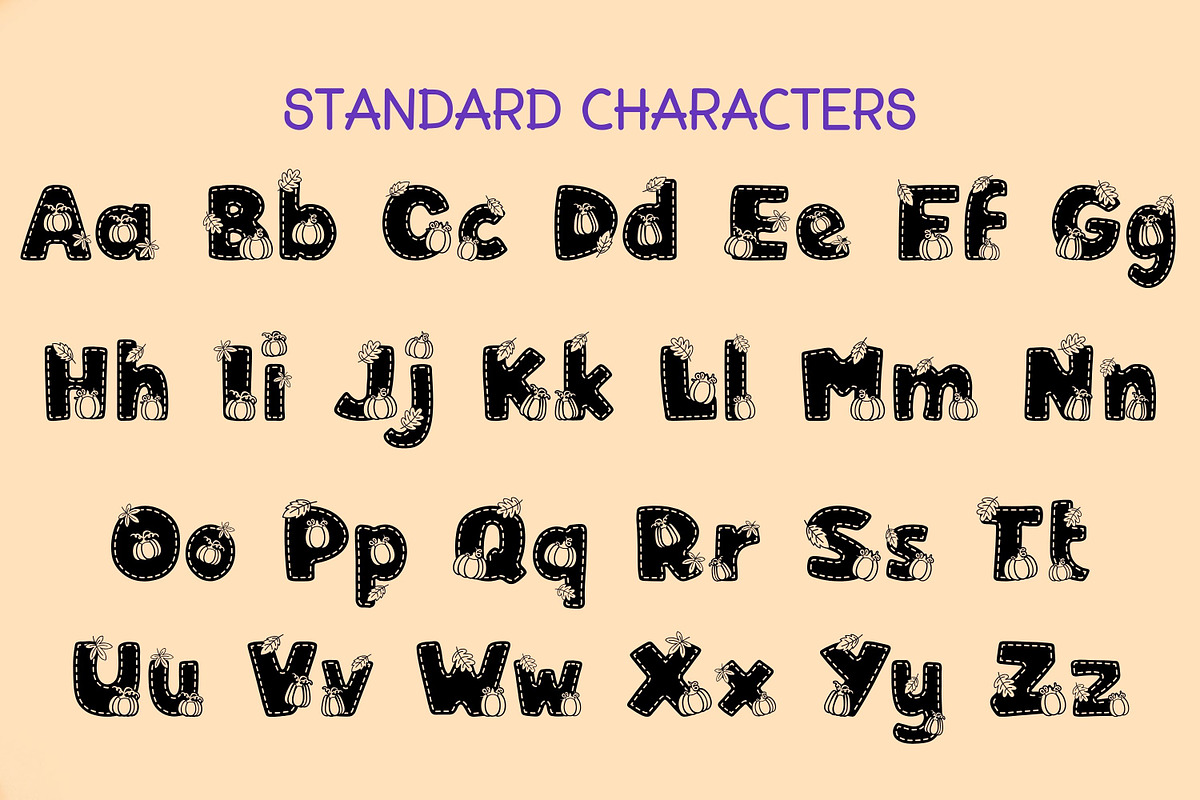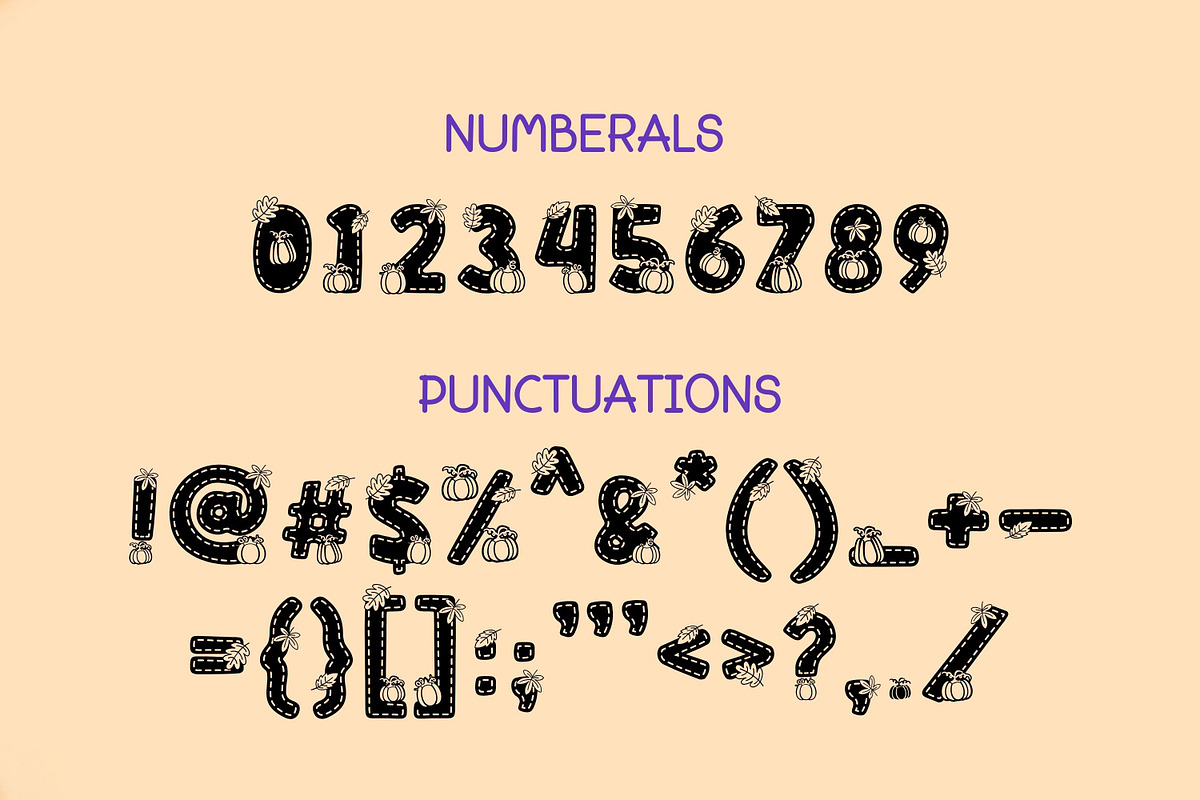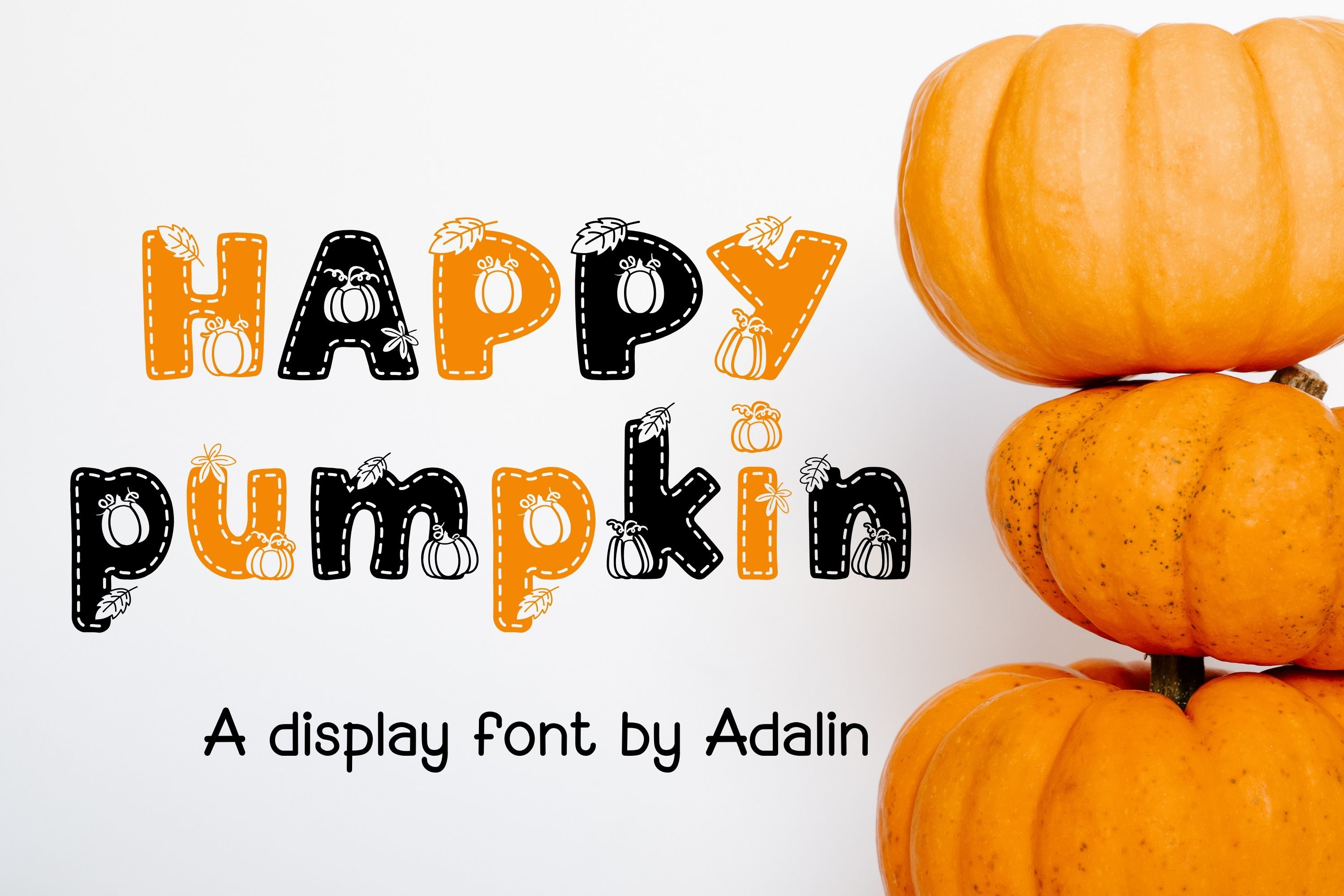
Happy Pumpkin - Display Font
Happy Pumpkin is a whimsical Halloween display font with pumpkins and fall leaves. Perfectly suited for spooky season designs, this font adds a playful yet mysterious vibe to your posters, invitations, party flyers, trick-or-treat signs, social media graphics, and more.